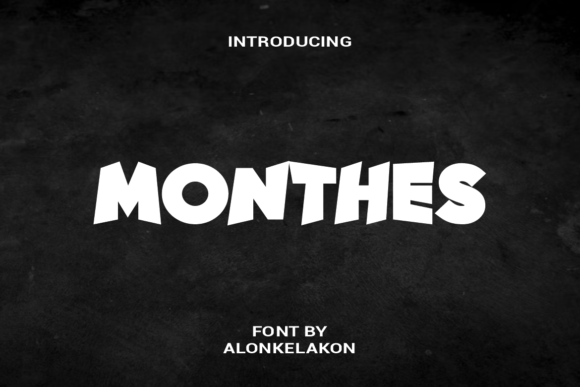
Introducing Monthes Font: The Epitome of Bold and Captivating Expression!
In the realm of digital artistry, let Monthes Font be your muse, a font that dances off the screen with its energetic strokes and confident stance. This all-caps display font exudes a personality that's both bold and playful, adding an instant spark to any creative project.
With Monthes Font, your words leap off the page, commanding attention with their striking presence. Its carefully crafted letterforms strike a perfect balance between legibility and visual intrigue, ensuring that your message shines through with clarity and impact. Whether you're crafting heartfelt letters, designing eye-catching digital creations, or delivering powerful presentations, Monthes Font is your steadfast companion, amplifying your ideas with a touch of audacity.
But Monthes Font is more than just a font; it's an experience. Its unique character lends itself effortlessly to a myriad of creative endeavors. Picture your words adorning personalized greeting cards, adding a dash of charm to invitations, or gracing the pages of your captivating digital designs. With Monthes Font, your creativity knows no bounds, and your projects radiate with a touch of brilliance that sets them apart.
Don't settle for ordinary fonts. Embrace the expressive power of Monthes Font and unleash your creative genius. Let your words dance with boldness, captivate your audience with every stroke, and leave an unforgettable impression. Monthes Font is more than just a font; it's a gateway to a world of captivating expression, where your ideas take center stage and shine with unwavering confidence.
So, embark on this creative journey with Monthes Font, and experience the transformative power of typography. Let your words dance off the screen, captivating hearts and leaving an indelible mark on the digital world. Unleash the boundless potential of expression with Monthes Font, and let your creativity soar to new heights!